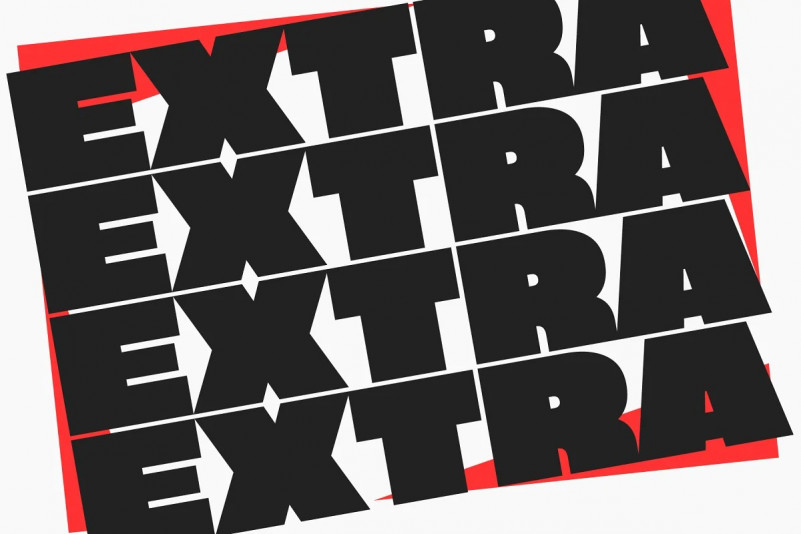
Megabold: World’s Heaviest Display Font
This is an incredibly Unique and Interesting Display Font for your Design that is absolutely great for your next creative project such as logos, printed quotes, invitations, cards, product packaging, headers, Logotype, Letterhead, Poster, Apparel Design, Label, and etc.